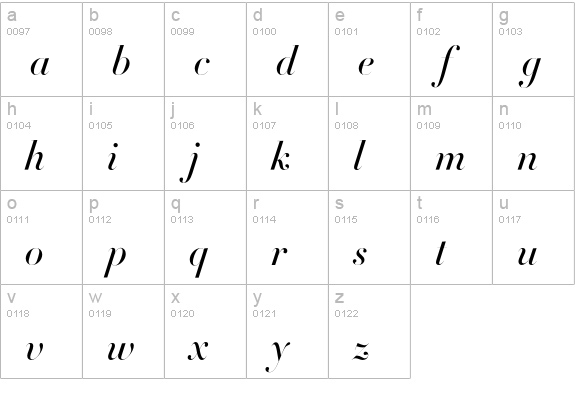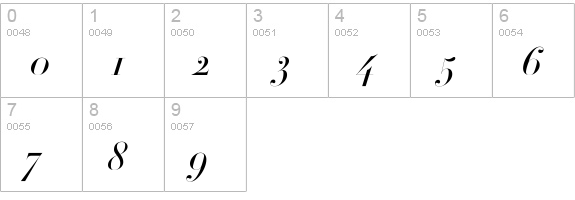
Didot-HTF-M96-Medium-Ital Font Details
Didot-HTF-M96-Medium-Ital is a balanced, medium-weight variant in the Didot typeface family \xE2\x80\x94 well suited to sub-headlines, navigation, and balanced editorial work.
Didot-HTF-M96-Medium-Ital is a stylish and elegant font that exudes sophistication and class. With its sleek and modern design, this font is perfect for adding a touch of luxury to your projects. The medium weight and italic style of this font make it versatile and suitable for a wide range of design applications. One of the best features of Didot-HTF-M96-Medium-Ital is that it is available for free download at FontsMarket.com. This means that you can easily access this beautiful font and use it in your designs without any cost. Whether you're creating invitations, posters, or branding materials, this font will elevate your work and give it a professional and polished look. Overall, Didot-HTF-M96-Medium-Ital is a stunning font that combines classic elegance with a modern twist. Its availability for free download makes it a valuable resource for designers looking to enhance their projects with a touch of sophistication.